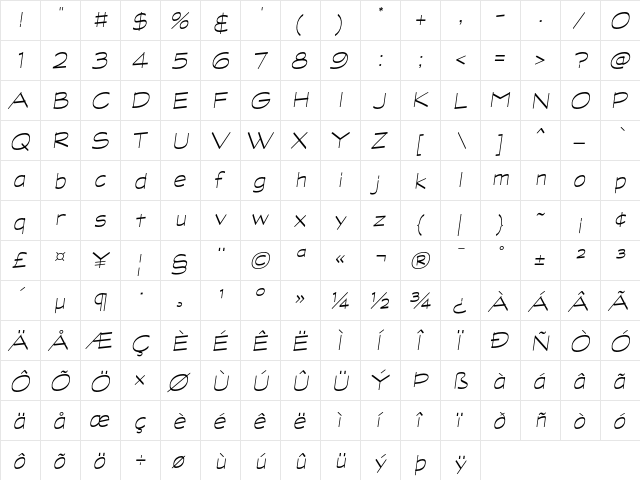
GraphiteLight Oblique
Design Context for GraphiteLight Typeface
GraphiteLight is a composed and adaptable typeface that performs quietly and consistently across a wide range of design contexts. Its italic angle brings a sense of urgency and motion to the letterforms. The delicate stroke weight brings airiness and refinement to layouts.
Pro Tip: Try GraphiteLight for annotation and caption copy alongside an upright companion — the contrast in angle creates a dynamic but ordered typographic system.